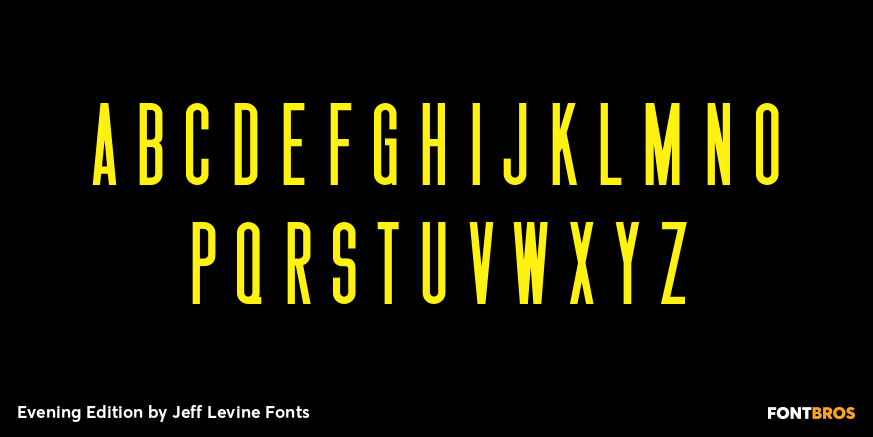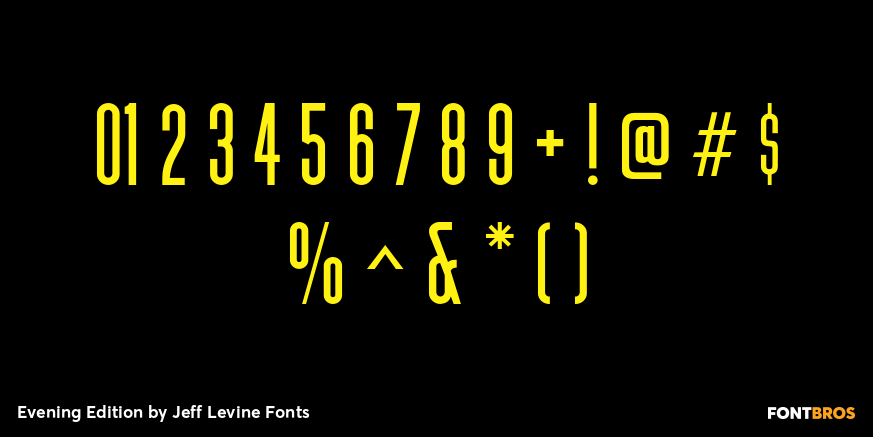
Evening Edition
Evening Edition JNL pays tribute to the ever-decreasing line of daily newspapers in this country by emulating the "wood type" look of the headlines. Way before the Internet took over as a popular information source, it was the morning, afternoon or evening edition of a paper that presented the big story of the day.